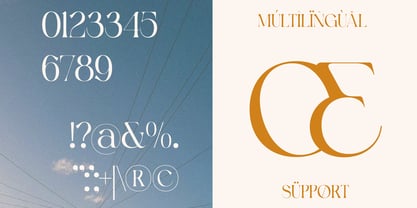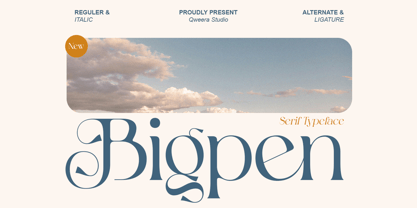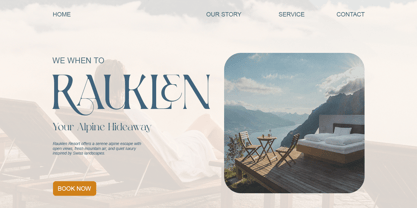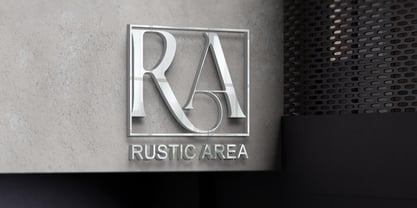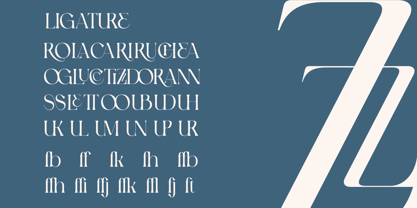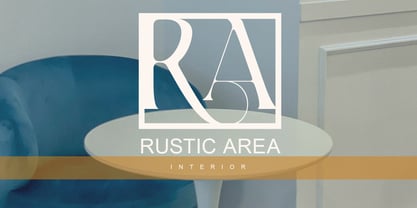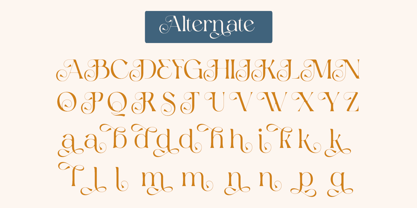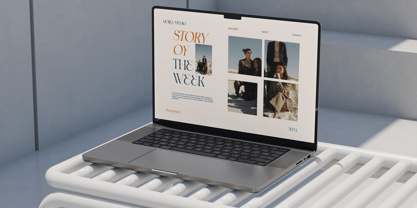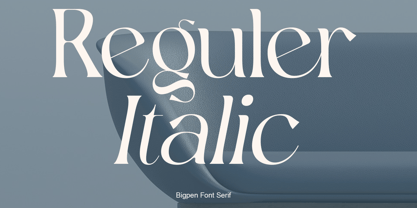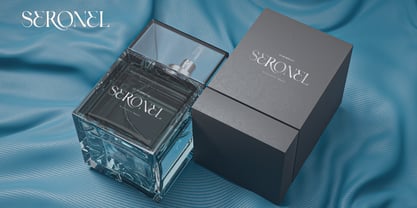
Bigpen
by Qweera Studio
The Bigpen Font Family was designed by Idhham Cholid Rikzano Yahya and published by Qweera Studio. Bigpen contains 2 styles and family package options. More about this family
Bigpen is a modern elegant swash serif featuring refined curves and decorative terminals. Designed for premium branding and editorial typography, it offers stylish elegance with balanced serif structure. With alternates, ligatures, and multilingual support, Bigpen delivers flexible typography for both print and digital applications. Perfect for designers seeking modern luxury serif with expressive character. Features Swash alternates Ligatures Multilingual support Professional kerning Elegant contrast Specifications Language Support: Western, Central Europe Features: Alternates, Ligatures, Swash Recommended For Branding, editorial typography, logo design, packaging design, boutique identity systems.
Designers: Idhham Cholid Rikzano Yahya
Foundry: Qweera Studio